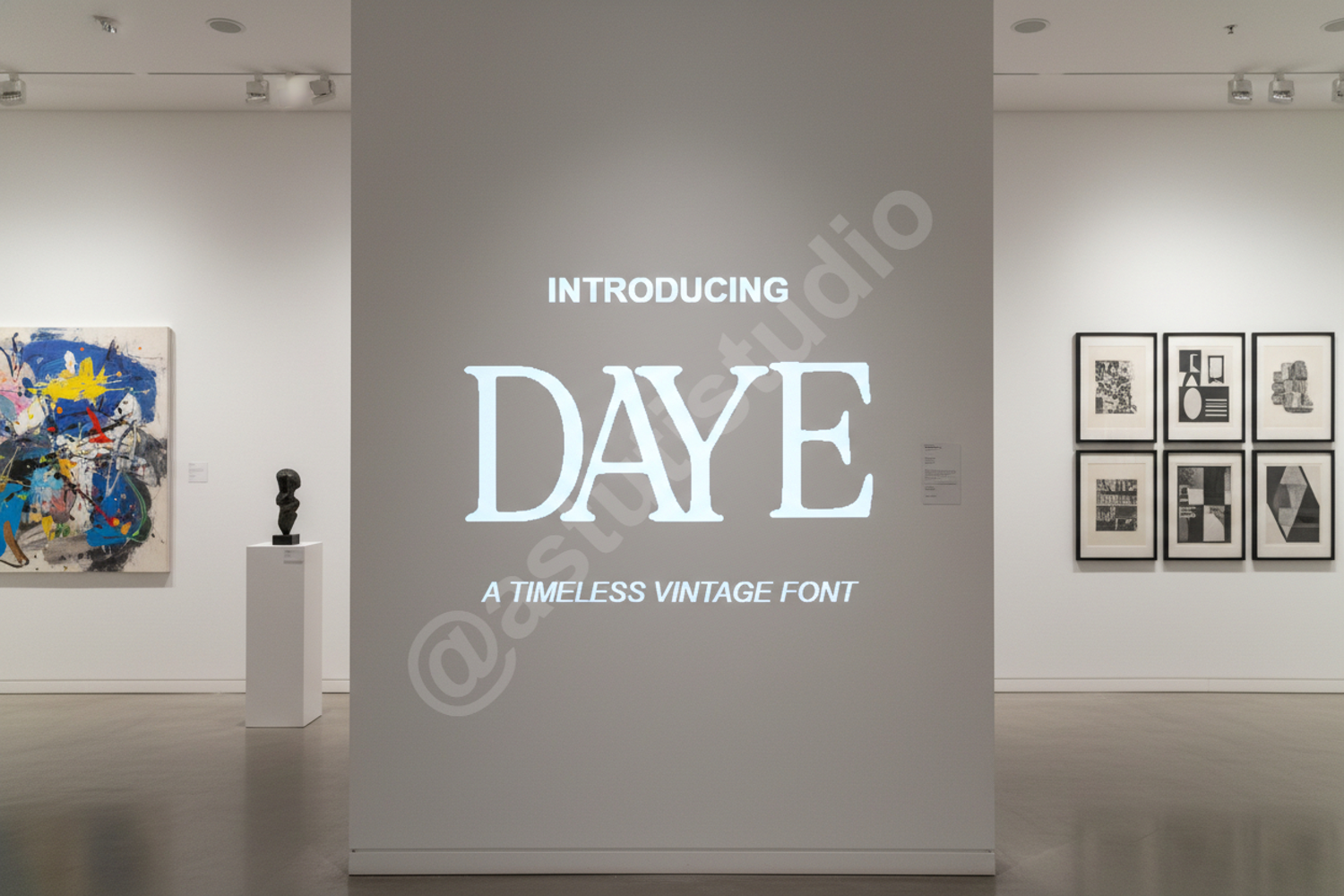
Daye - Elegant Modern Serif Font
Daye
Daye is a premium serif font that embodies sophistication and timeless elegance. Carefully crafted with balanced proportions and clean lines, Daye offers a professional aesthetic that elevates any creative project. Whether you are looking for a font that speaks of luxury or a versatile typeface for modern layouts, Daye is designed to deliver exceptional legibility and a high-end feel.
- Branding and Visual Identity: Perfect for logos, business cards, and high-end brand guidelines.
- Editorial Design: Ideal for magazine headlines, book covers, and sophisticated layout designs.
- Wedding and Events: Create stunning invitations, menus, and stationery with a touch of class.
- Social Media: Enhance your digital presence with eye-catching headers and promotional graphics.
- Packaging: Add a premium feel to product labels and luxury goods packaging.